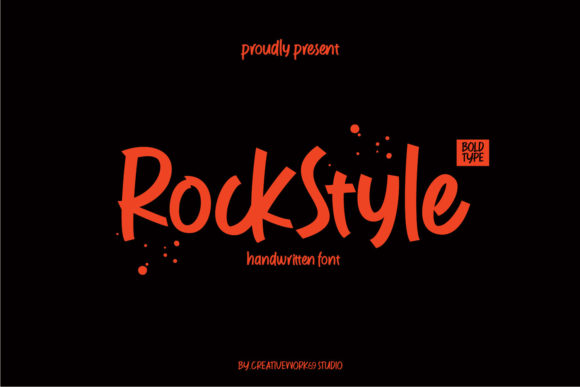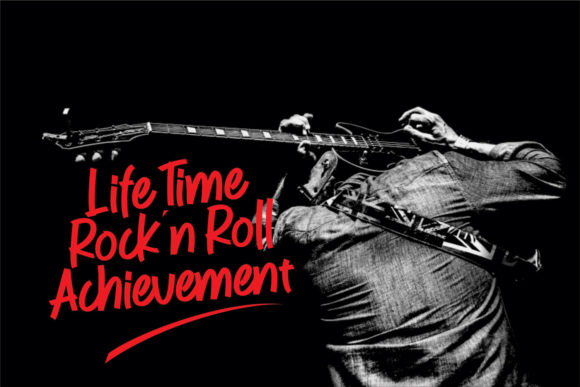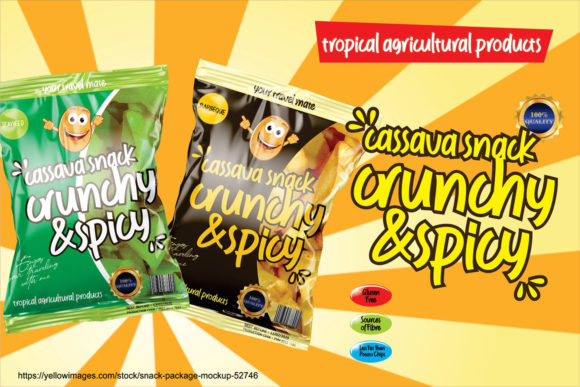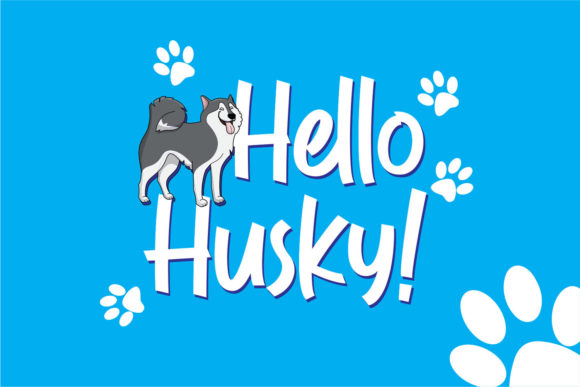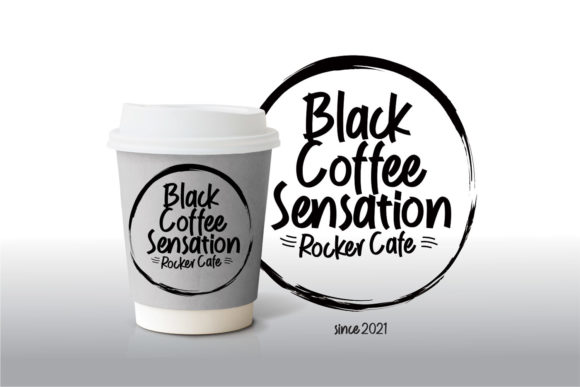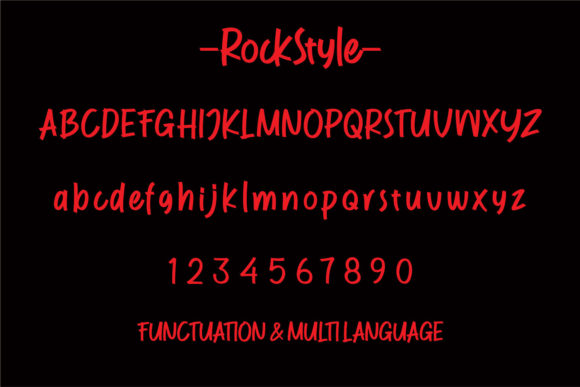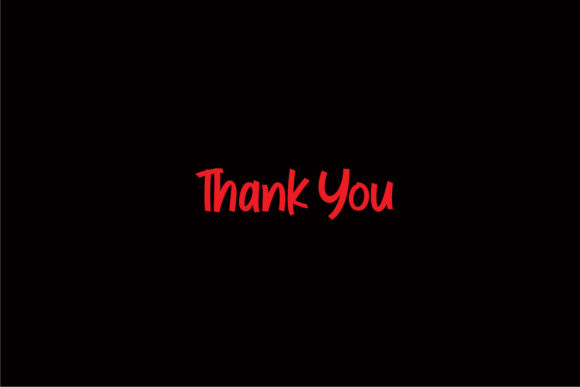
RockStyle Font
RockStyle is a bold and down-to-earth handwritten font that adds a cool touch to your headlines and logotype projects. With its readability and confident style, this font exudes strength and dynamism, bringing a nostalgic character to your designs.
The bold strokes and distinct letterforms of RockStyle make it stand out and grab attention. It has a strong presence that adds impact to your headlines, making it perfect for creating eye-catching designs. Whether you’re working on branding, packaging, posters, or any other project that requires a bold and cool aesthetic, RockStyle delivers.
One of the notable features of RockStyle is its readability. The letters are crafted with clarity in mind, ensuring that your message is conveyed effectively. This makes the font suitable for a wide range of applications, including print materials, digital designs, social media posts, and more.
With its cool and nostalgic character, RockStyle brings a unique charm to your projects. The handwritten style adds a personal and authentic touch, creating a connection with your audience. It’s a font that embodies confidence and creativity, making it ideal for expressing your brand’s personality or adding a touch of playfulness to your designs.
Incorporating RockStyle into your designs can elevate their visual impact and bring a cool and nostalgic vibe. Its bold and readable nature, combined with its distinctive style, makes it a versatile choice for various design projects. Whether you’re designing logos, headlines, posters, or any other creative work, RockStyle adds a touch of confidence and dynamism.
So, if you’re looking for a readable, bold, and cool handwritten font to enhance your headlines and logotype projects, RockStyle is an excellent choice. Its nostalgic character makes it stand out and adds a unique flair to your designs. With RockStyle, you can create designs that capture attention, evoke emotions, and leave a lasting impression on your audience.